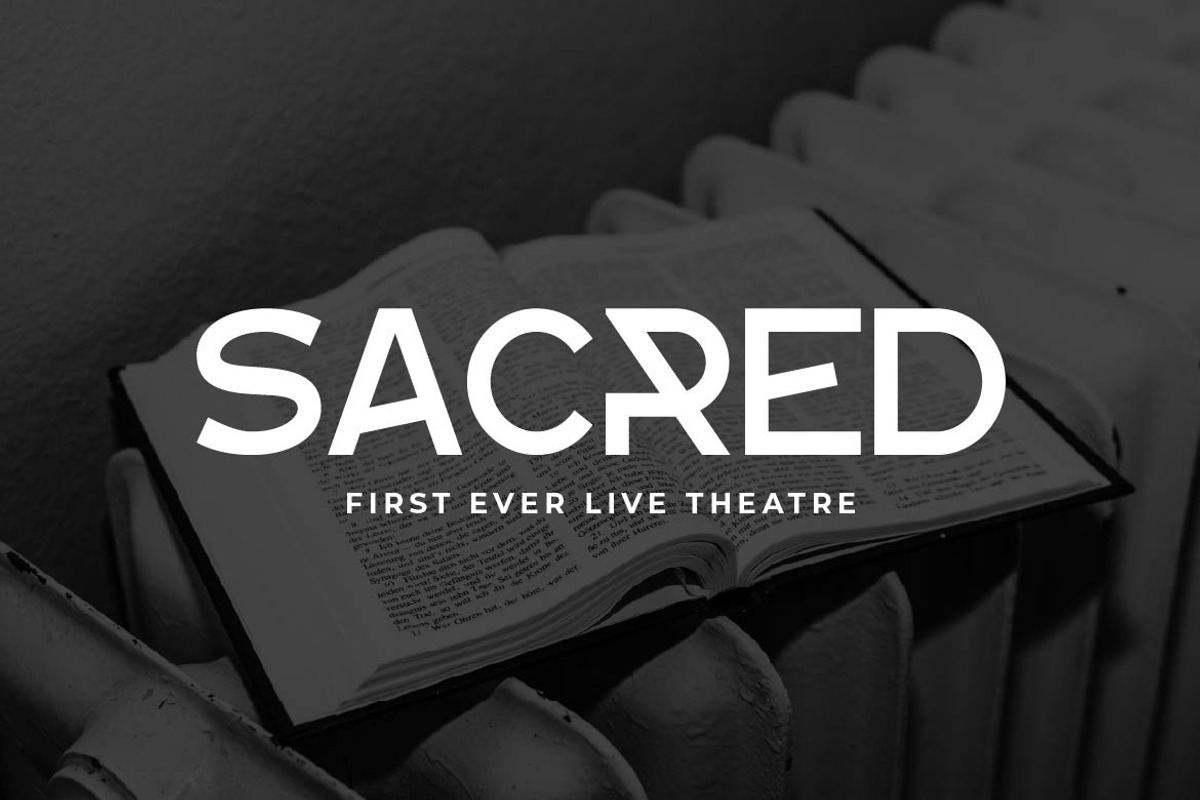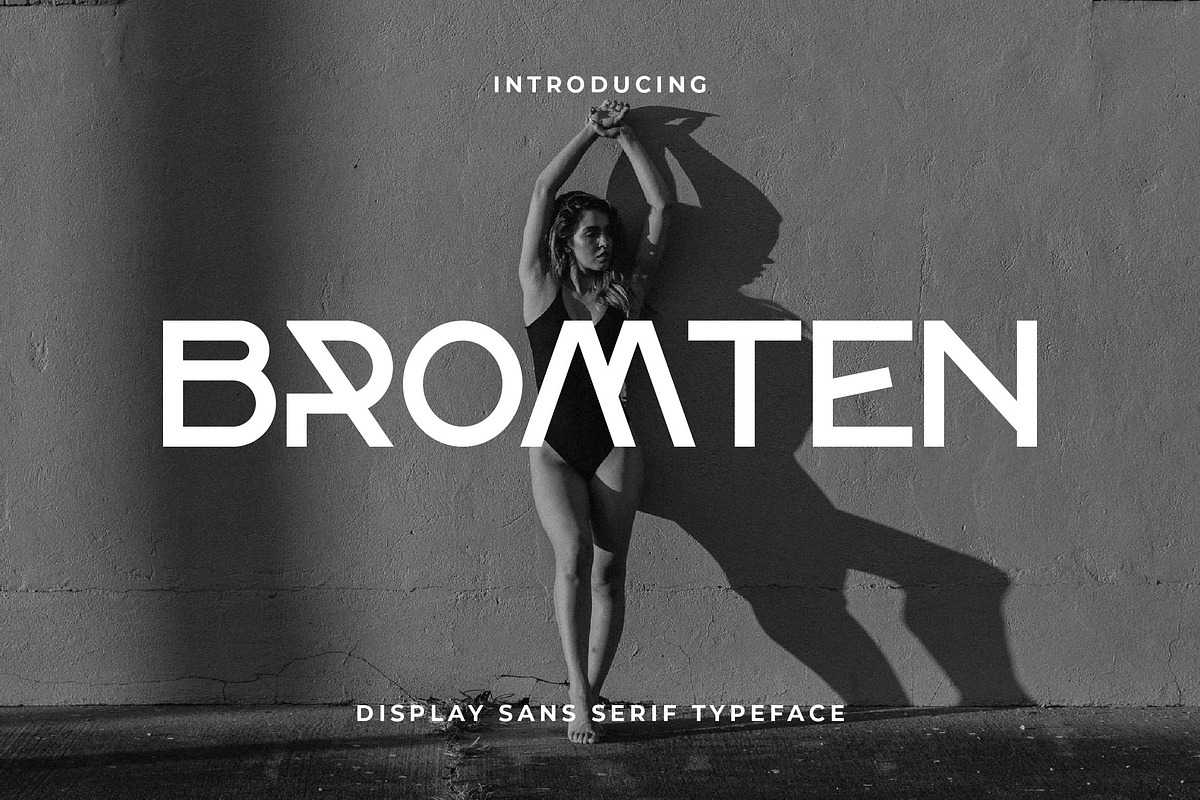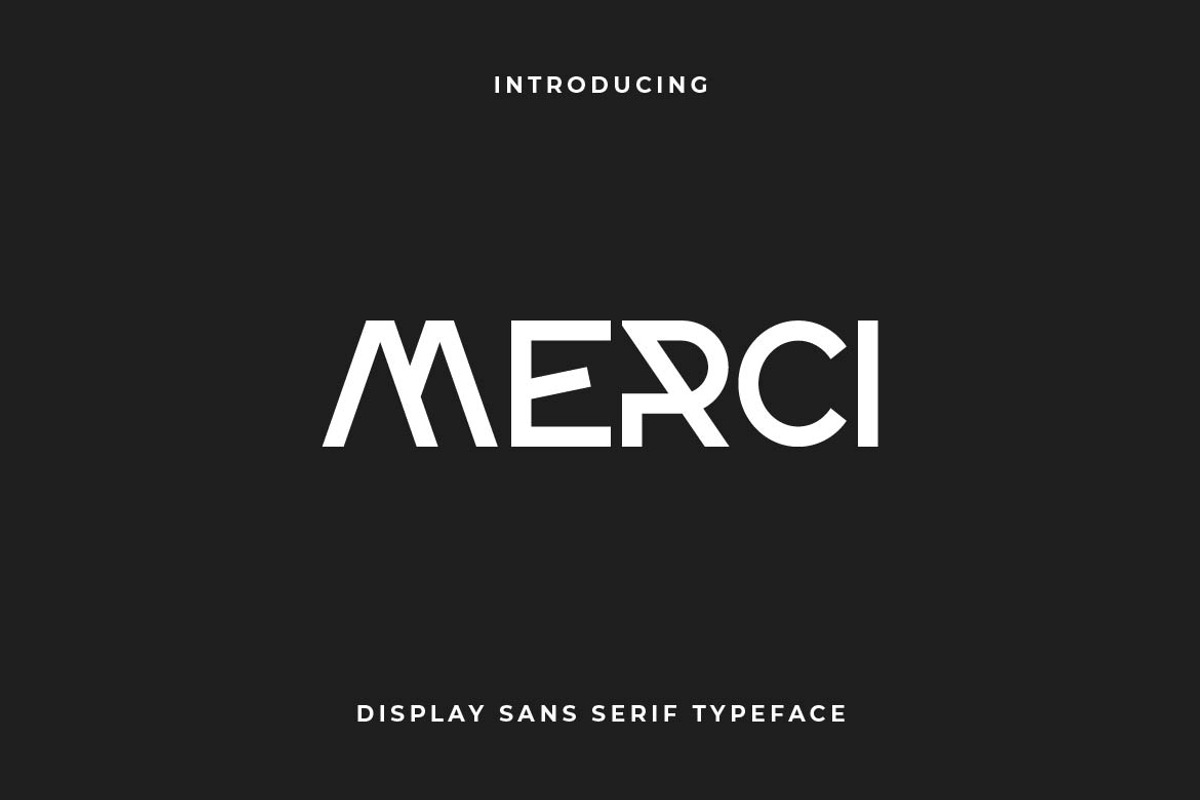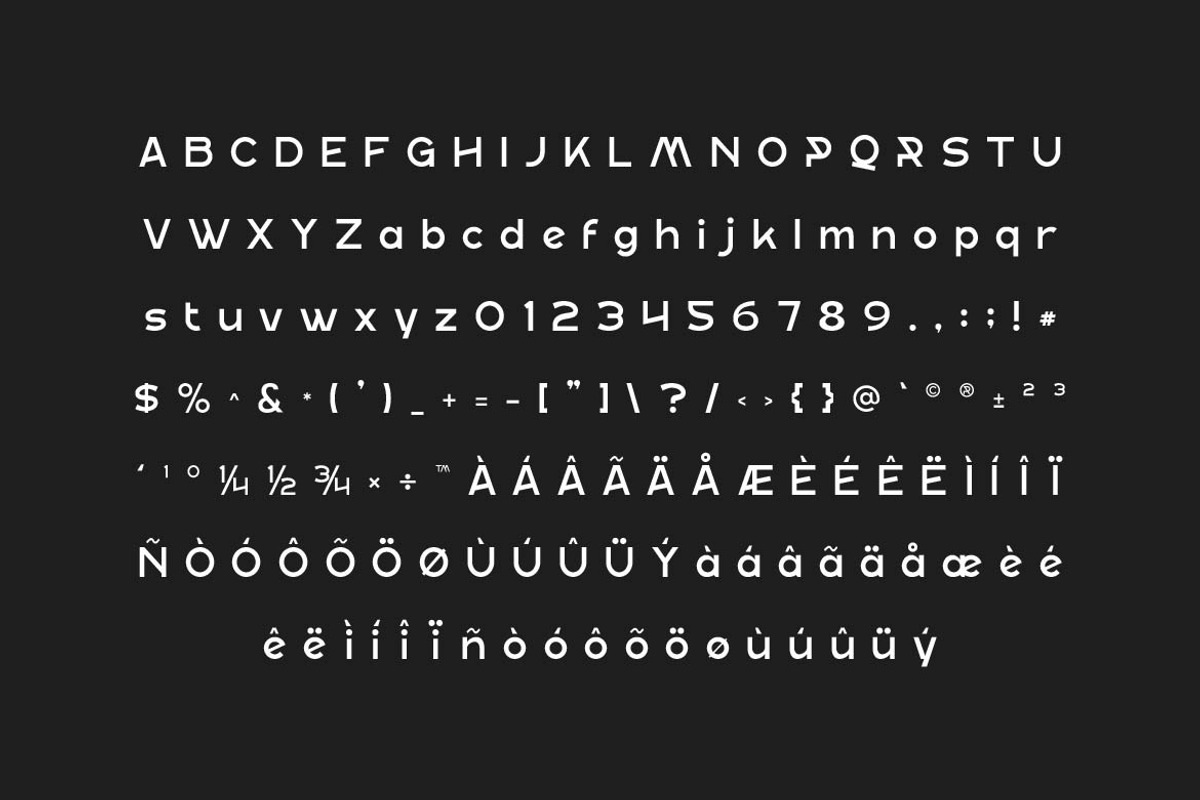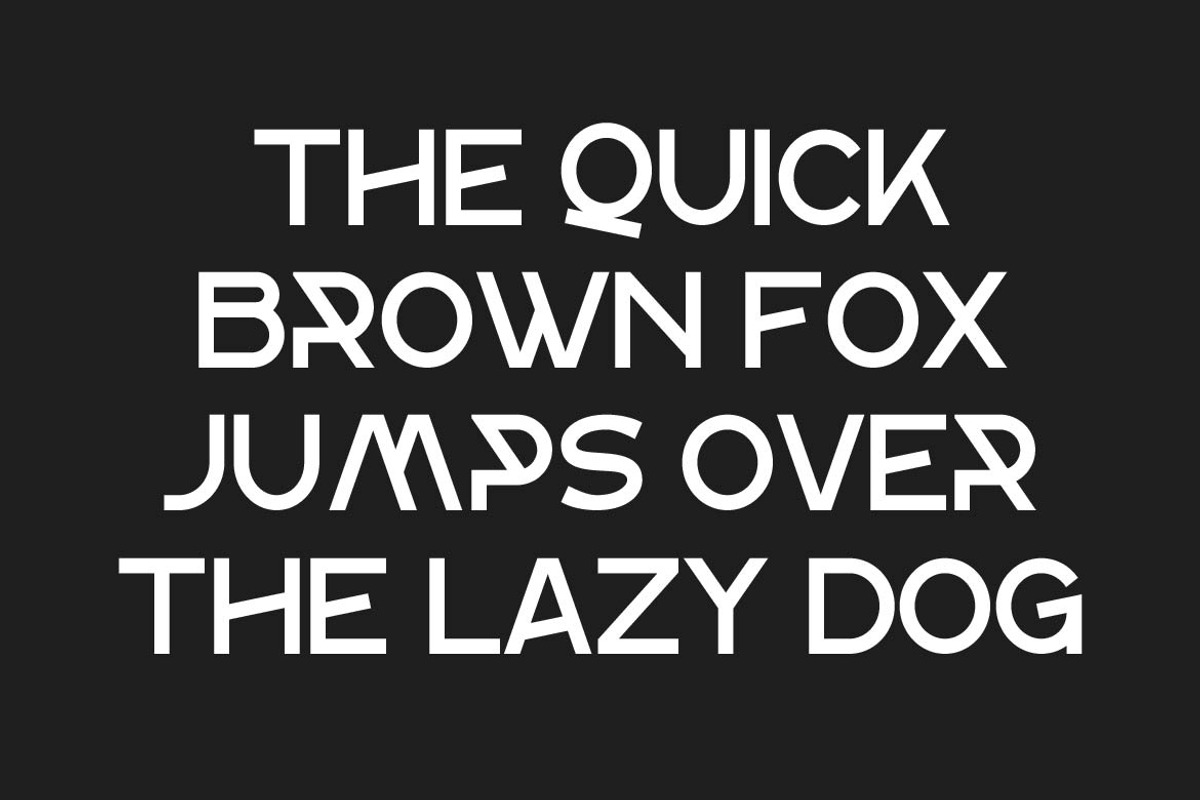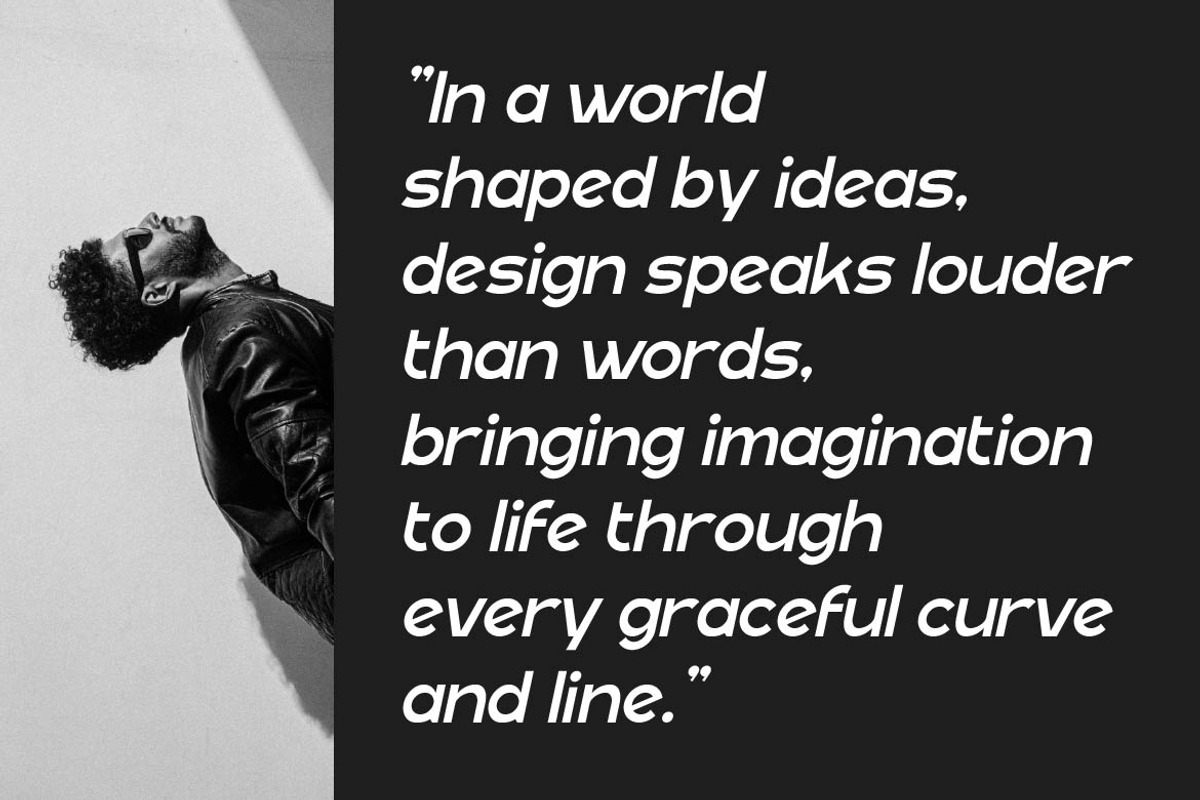
Bromten Geometric Sans Serif
Bromten is a geometric modern sans serif font designed for precision, balance, and forward-thinking aesthetics. Inspired by clean architectural lines and minimal design principles, Bromten combines circular shapes and sharp terminals to create a font that feels both engineered and approachable. Its crisp, modern appearance makes it ideal for branding, tech interfaces, editorial design, product packaging, and digital media that requires a sleek, contemporary voice.